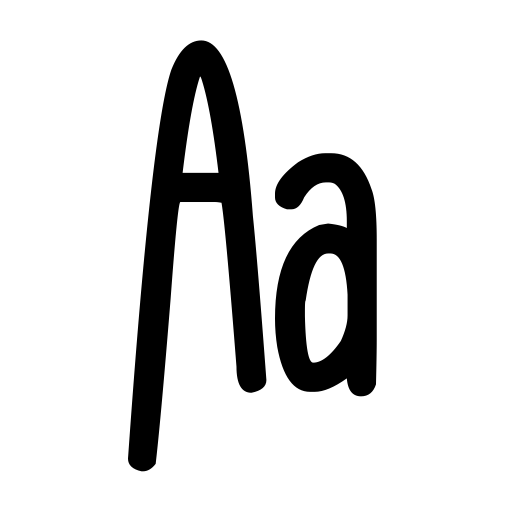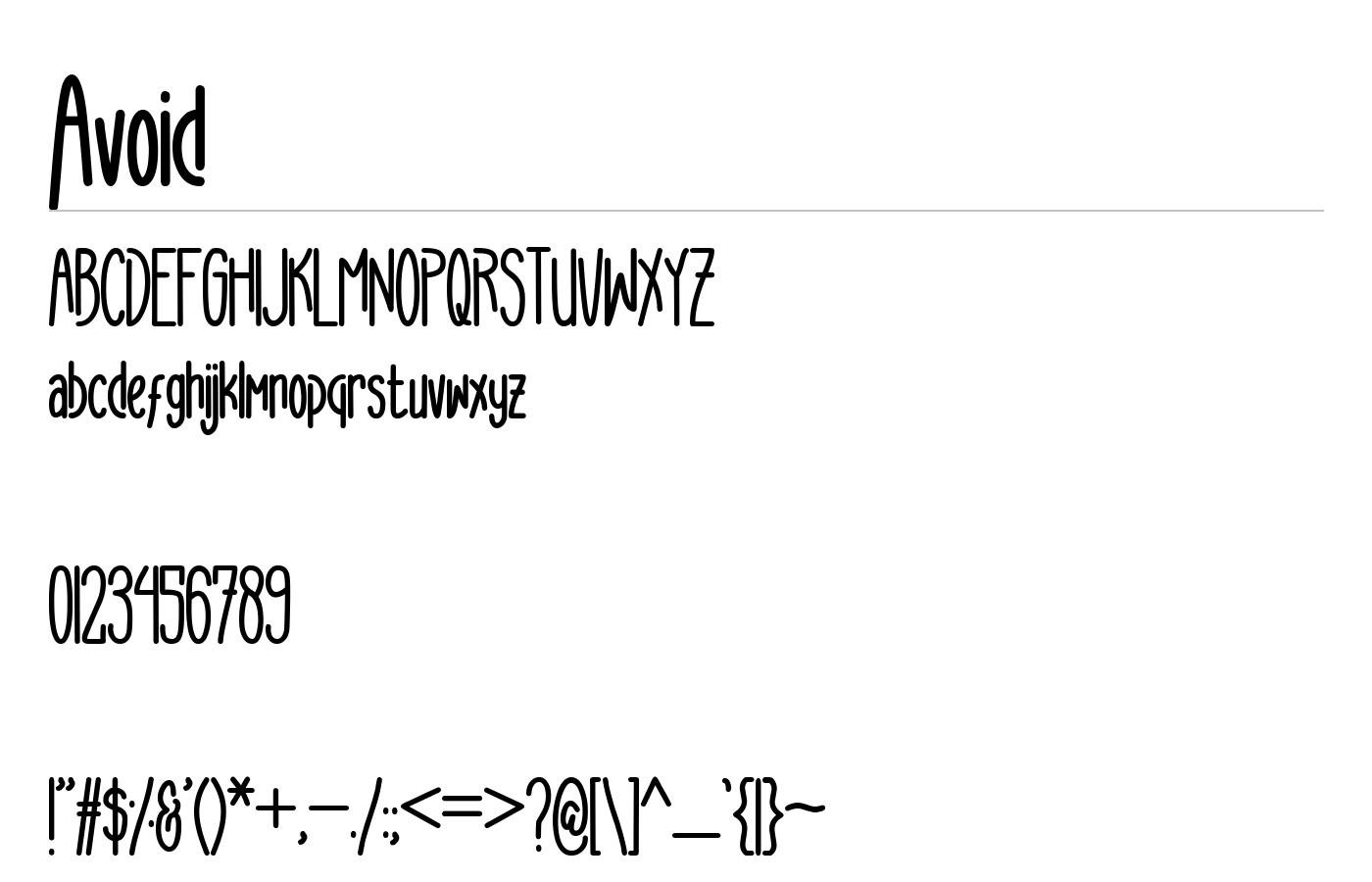
Avoid Font is a tall, narrow handwritten sans serif with a playful and quirky personality, featuring uneven stroke widths and slightly irregular letter shapes that evoke a casual, creative feel. Its condensed height and slender letterforms make it perfect for attention-grabbing headlines, logos, or informal branding where a unique, friendly tone is desired. This font works best in design projects that want to express individuality and charm without losing readability.
Avoid Font